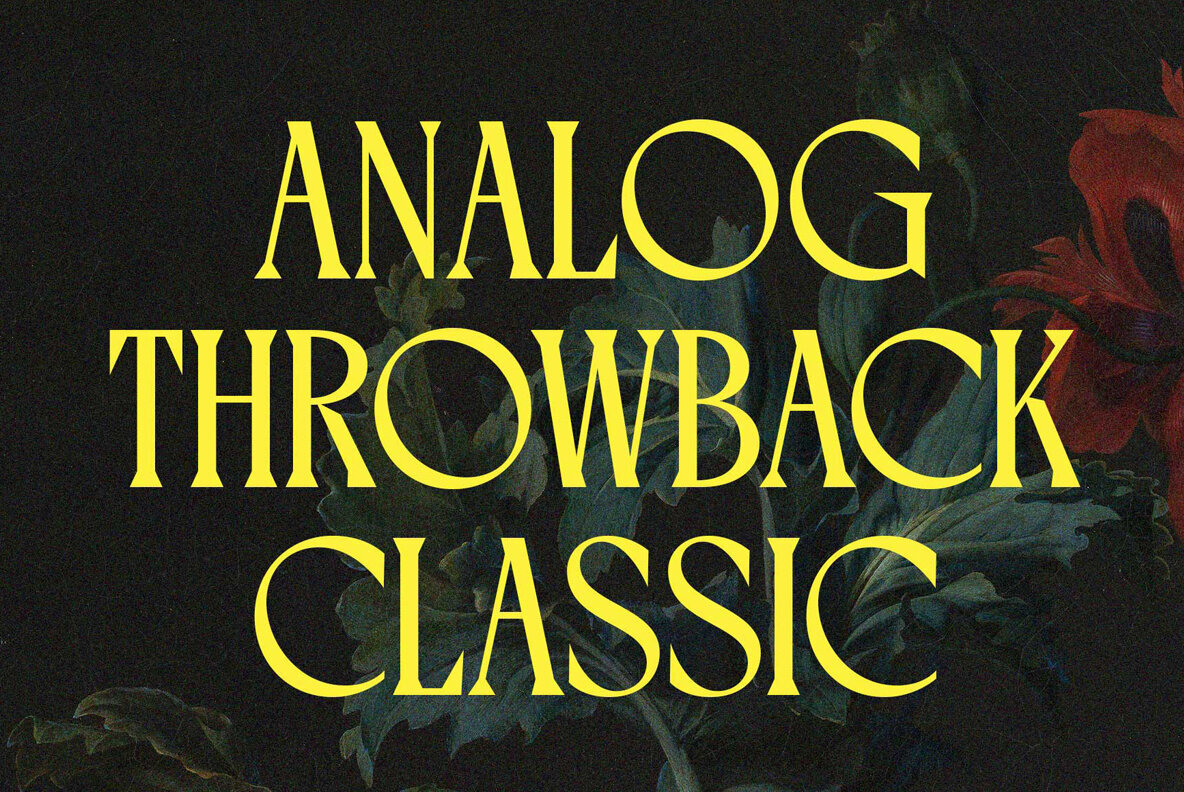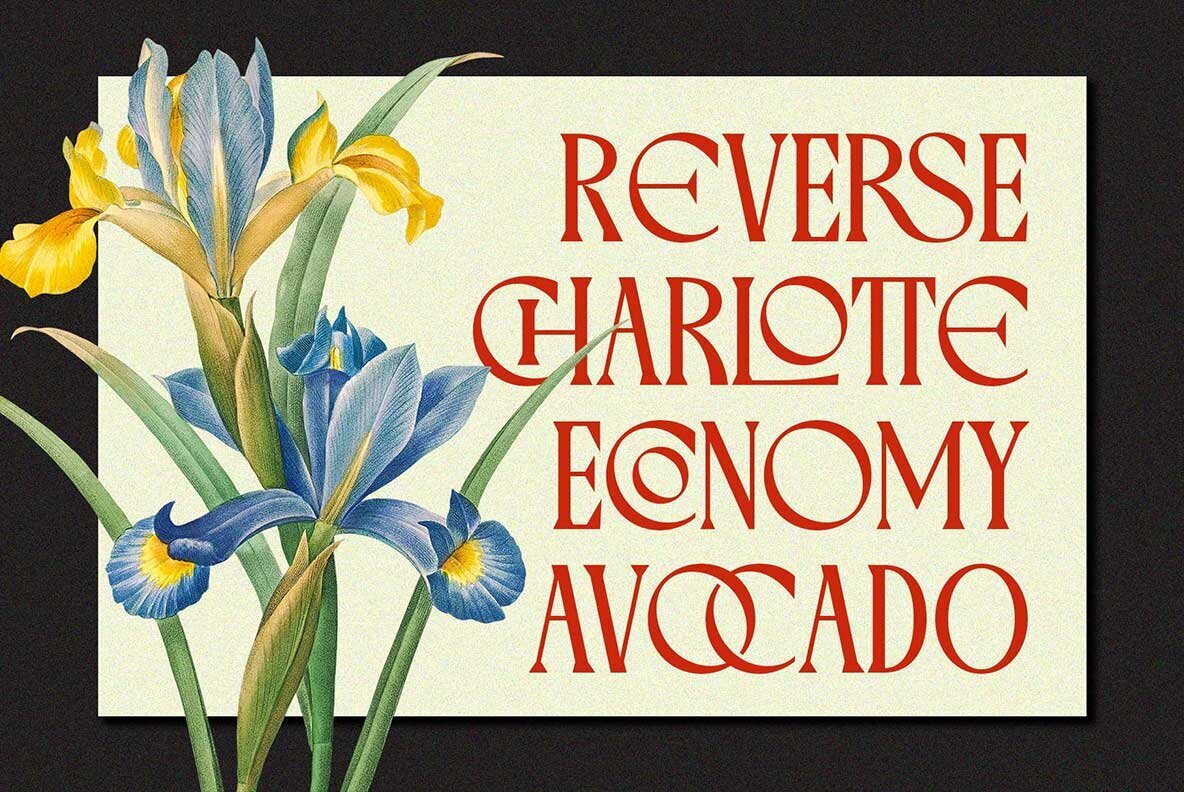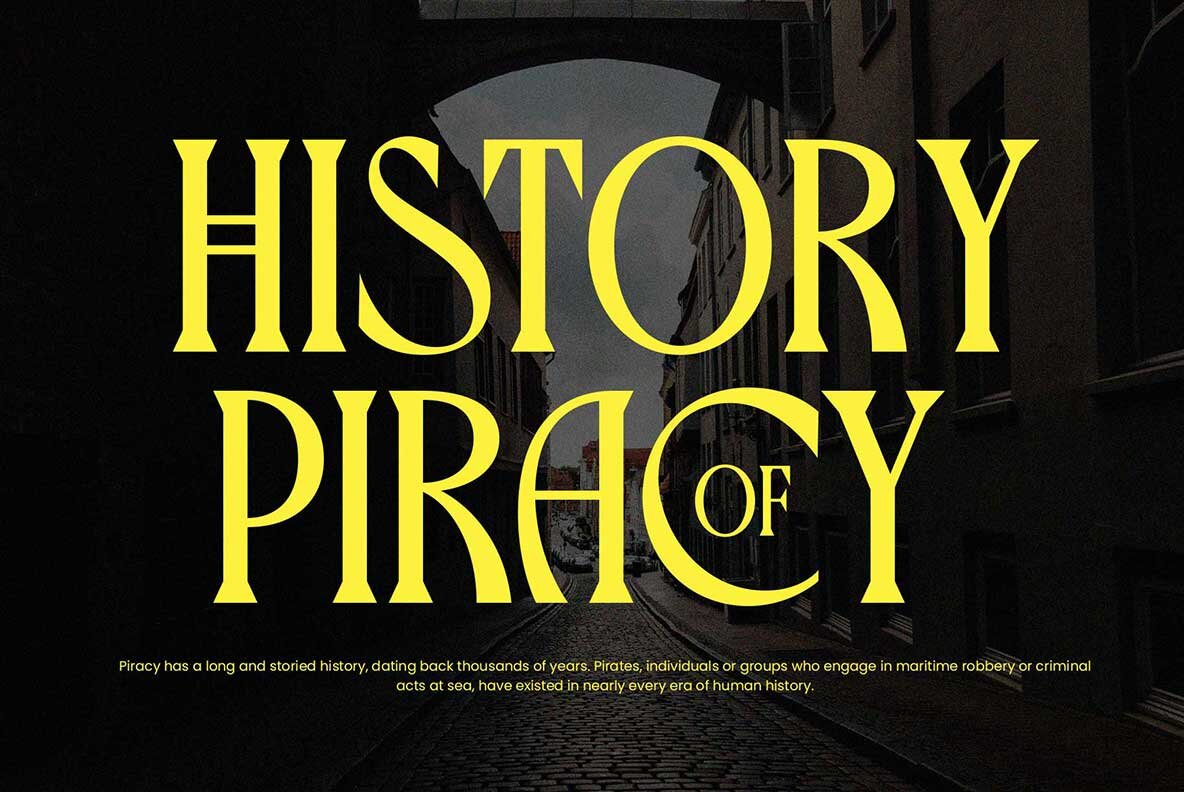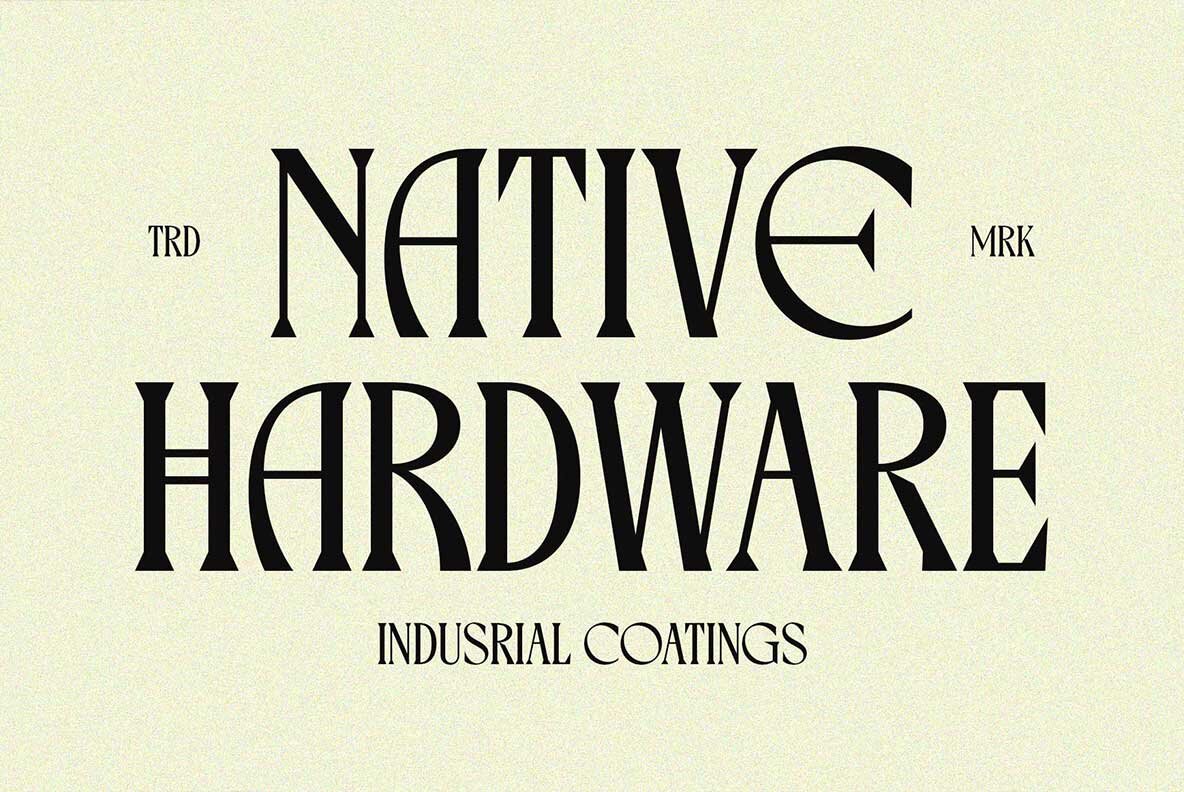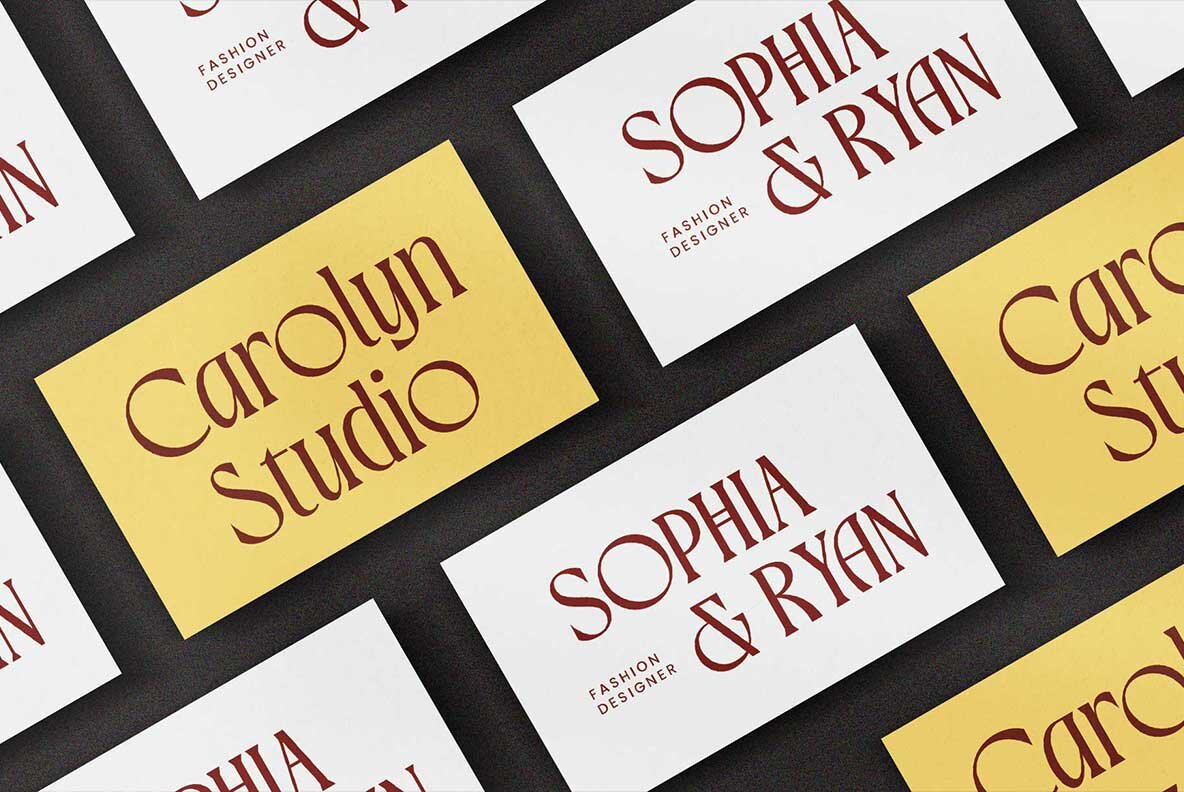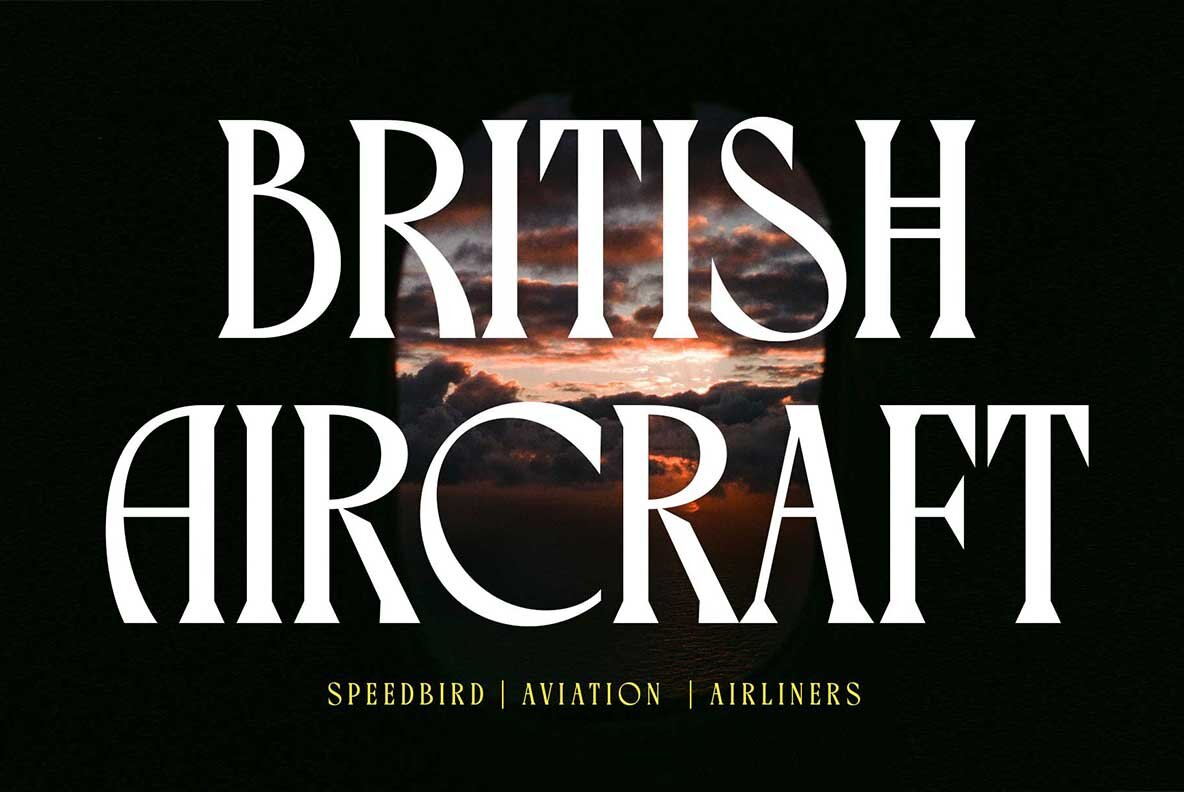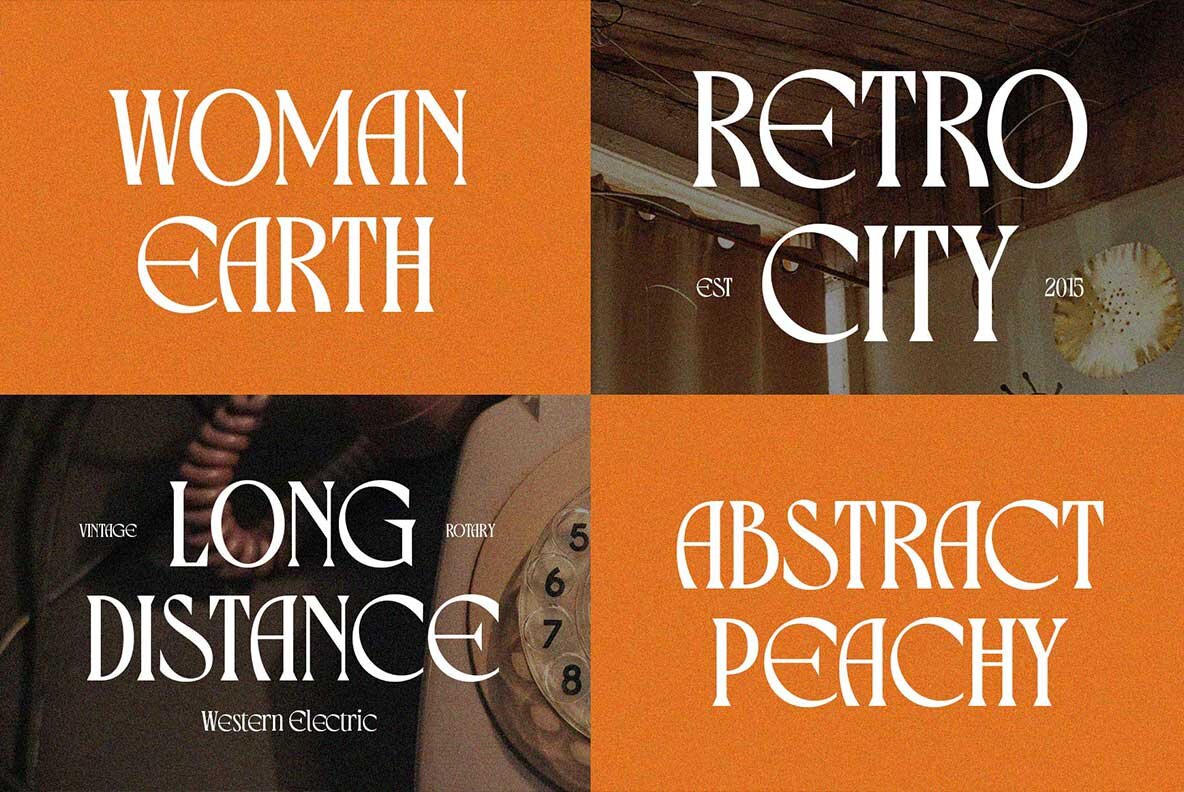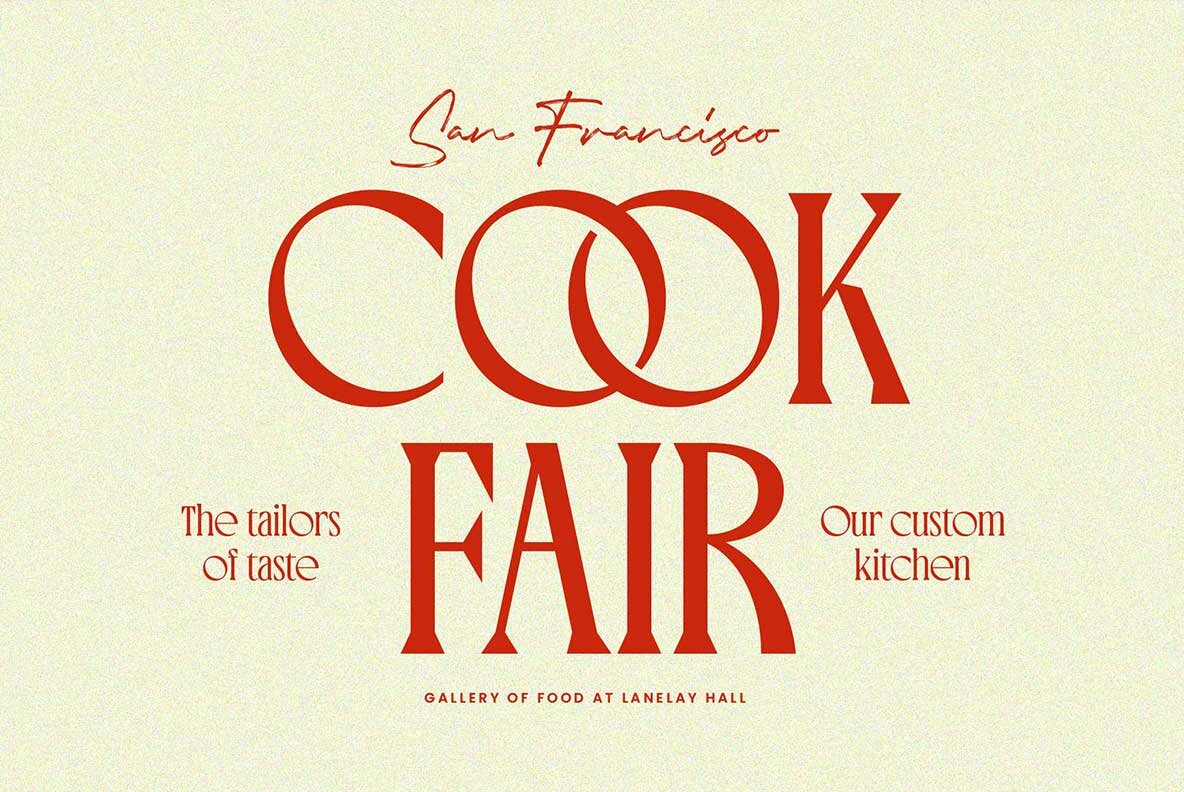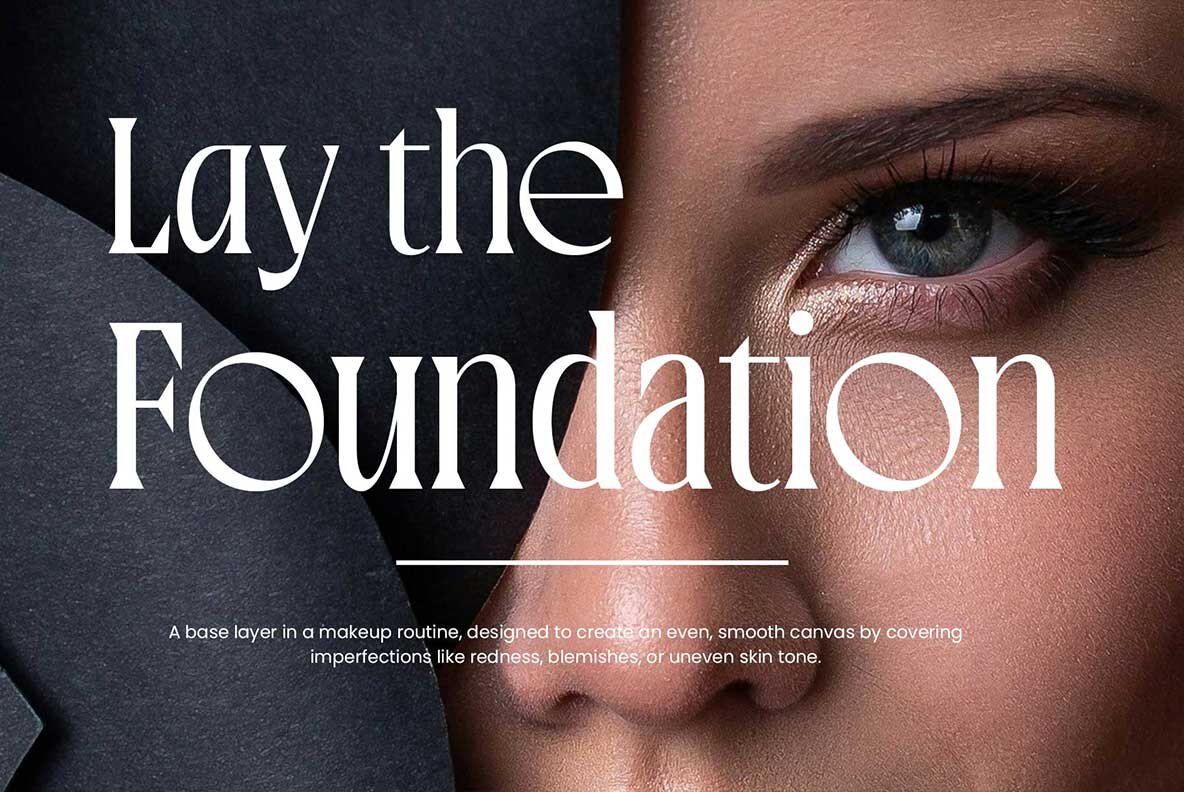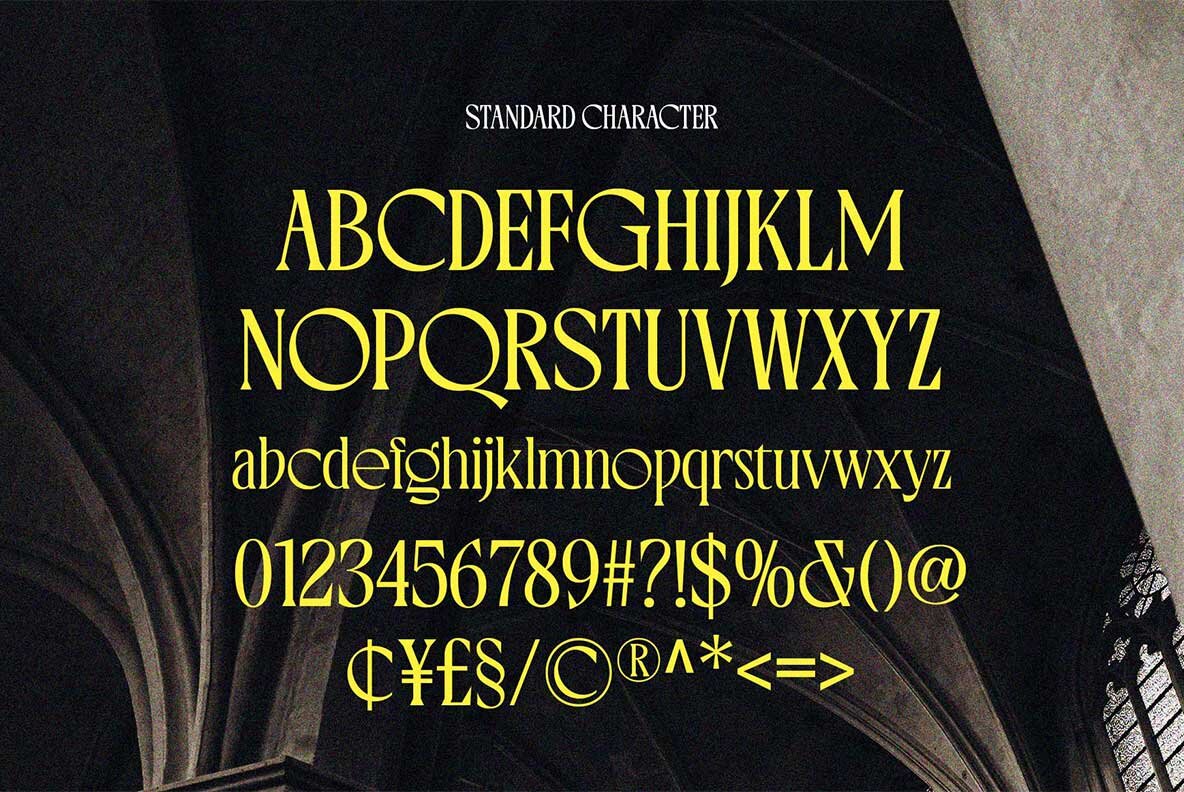
Varoste Font
Varoste Regular
Varoste is a modern vintage condensed display typeface that exudes elegance and sophistication. Its geometric letterforms bring a timeless charm to any design, with distinctive circular shapes in letters like O, Q, C, and G that feature a subtle slanted axis. This typeface merges classic flair with unique character, making it perfect for a variety of graphic projects.
The lowercase letters of Varoste display an old-school serif style, characterized by beautifully highlighted joints and high contrast, ensuring bold impact in your designs. Ideal for titles, labels, branding, or logos, this typeface includes special characters that evoke classic nostalgia while offering powerful visual appeal.
Varoste provides a comprehensive set of features, including uppercase and lowercase letters, numbers, symbols, and punctuation. It also supports multiple languages and comes with stylistic alternates and standard ligatures, making it a versatile choice for designers seeking to create unforgettable projects.